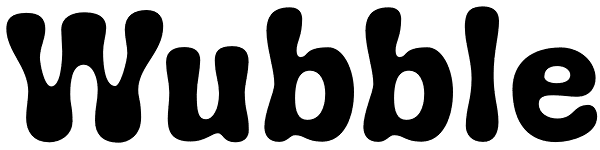
Wubble
Welcome to Wubble labs where the future of fonts is today. We have something new and very exciting to show you; Wubble, the finest liquid font we’ve ever produced. This font is the result of years of meticulous research to duplicate the precise...